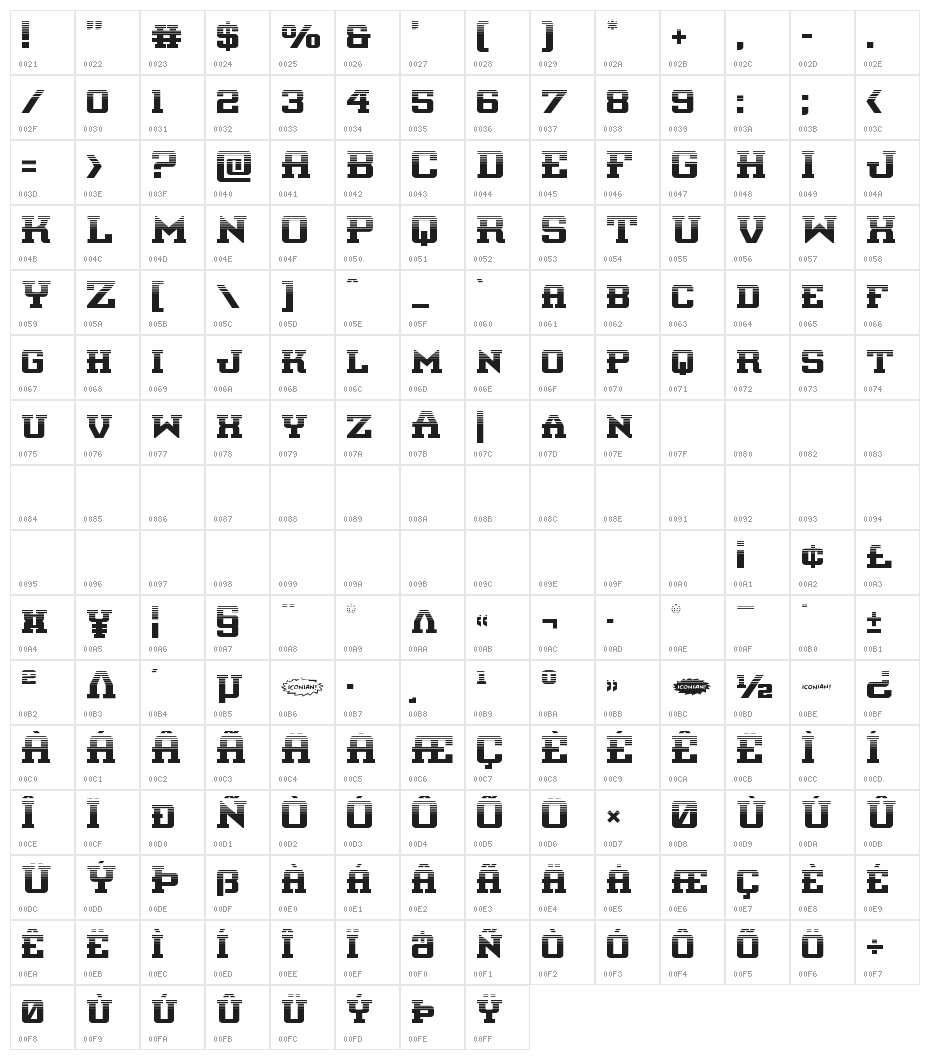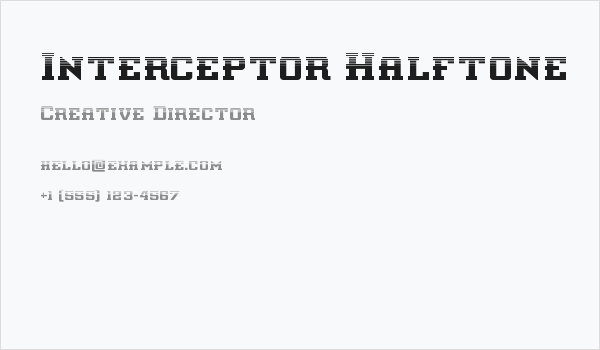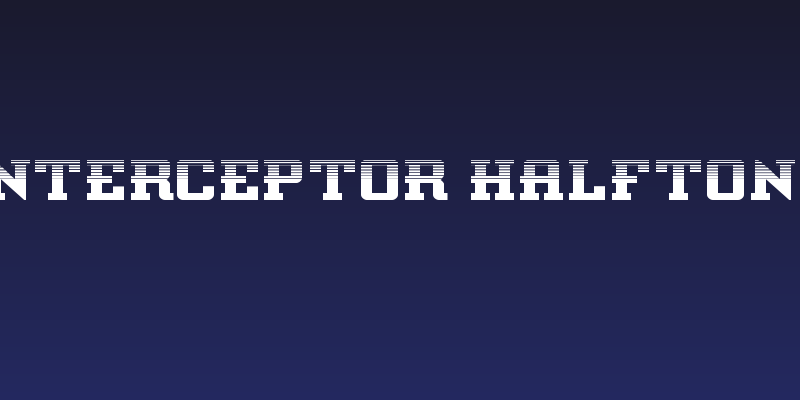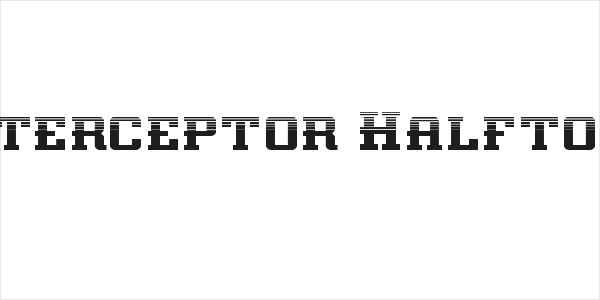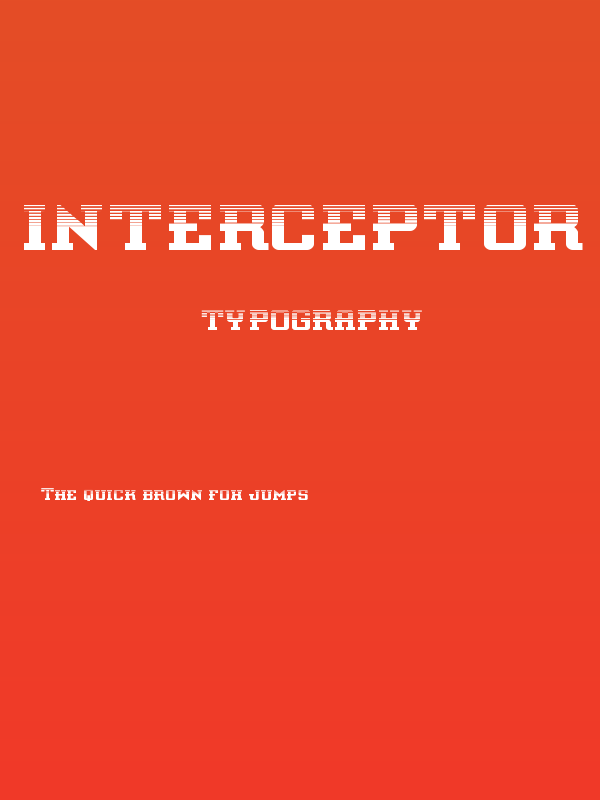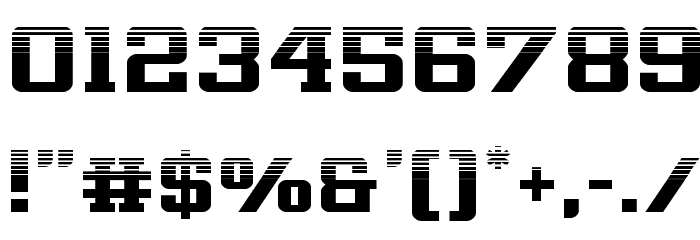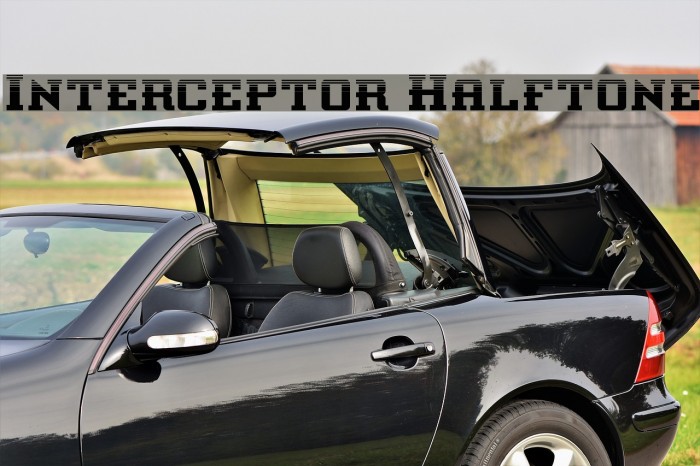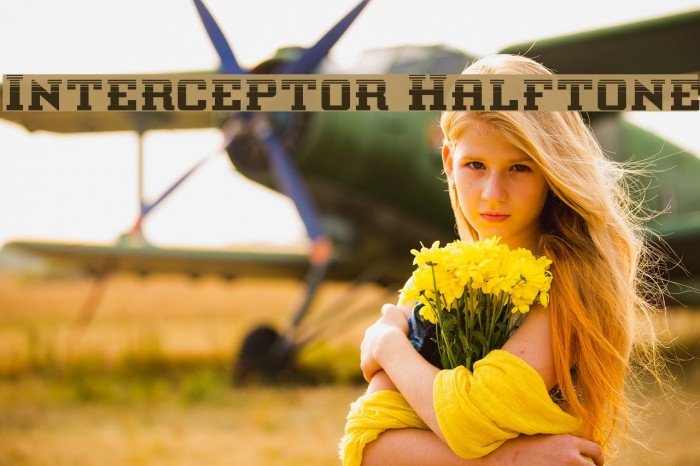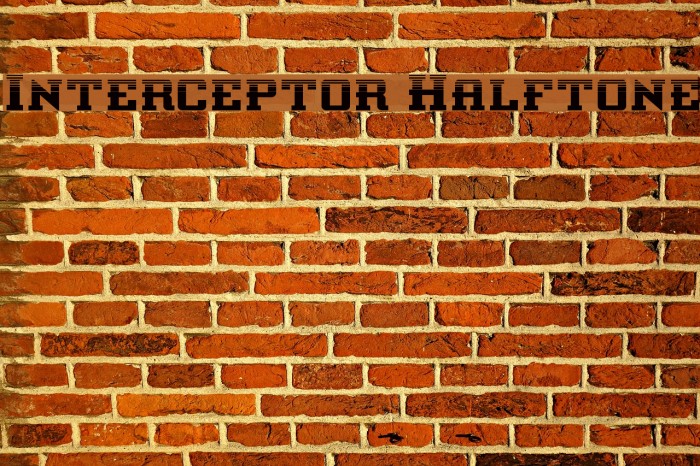
Interceptor Halftone Font
Interceptor Halftone Description
This font features a bold, industrial design with a halftone effect that gives it a unique, textured appearance. The characters are constructed with strong, geometric shapes, emphasizing a sense of strength and modernity. The halftone pattern adds depth and visual interest, making it stand out in any design. The uppercase and lowercase letters maintain a consistent style, with sharp edges and a blocky structure. Numbers and special characters are designed to match the bold aesthetic, ensuring a cohesive look across all text elements.
| Proposed Projects | Ideal for posters, branding, and any project requiring a strong, modern aesthetic. |